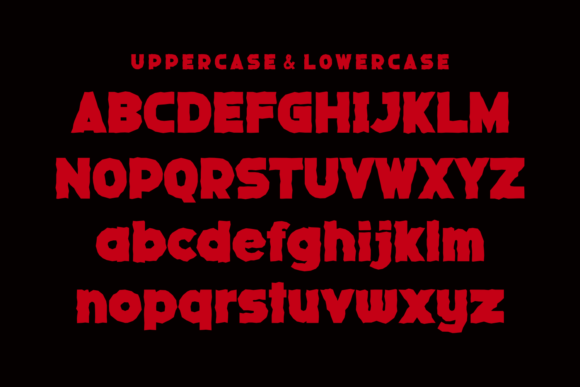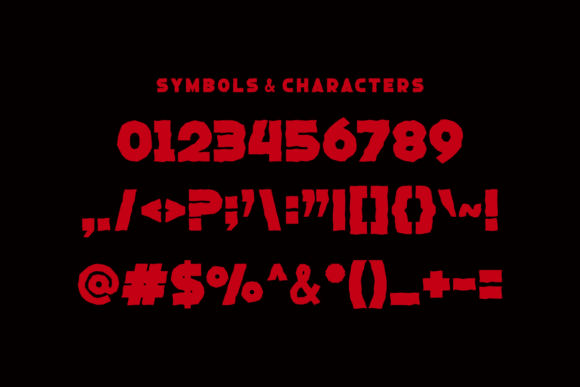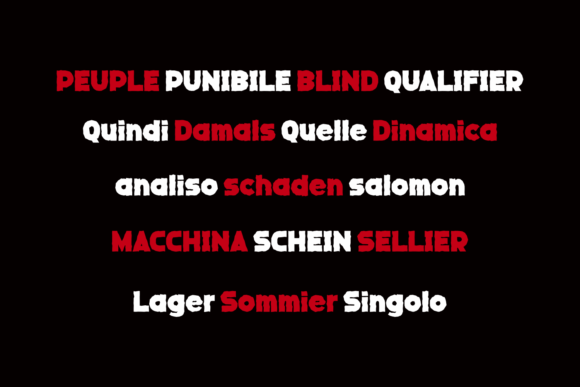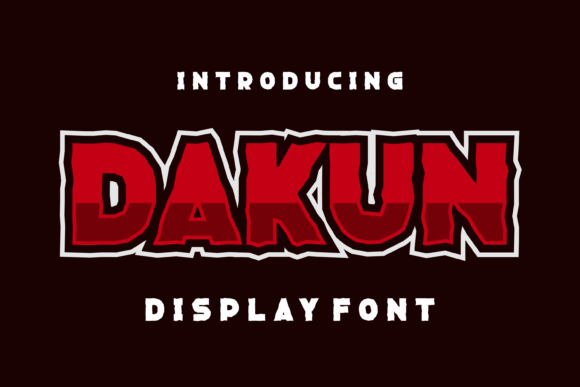
The Designer’s Delight: Unlocking the Potential of Dakun Font
Ah, the thrill of the design process! You’ve got a project to work on, a deadline to meet, and a vision to bring to life. But then, you hit a roadblock – finding the perfect font. I recall a particularly frustrating experience when I was working on a branding project for a trendy coffee shop. The client wanted a font that was modern, elegant, and highly legible. That’s when I stumbled upon Dakun Font, and it instantly became my go-to choice.
An Honest Review of Dakun Font
So, what makes Dakun Font so special? Let’s dive into the good stuff! 😊
- ✨ Perfect for print and screen: Dakun Font shines in both digital and print formats, making it an excellent choice for a wide range of projects.
- ✅ Extensive character set: It includes uppercase and lowercase letters, numbers, and punctuation, ensuring you have all the characters you need.
- ✅ Highly versatile: Use it for branding, name cards, posters, logos, magazines, covers, banners, t-shirts, and headers – the possibilities are endless!
Of course, no font is perfect, and Dakun Font has a few minor quirks:
- 🤔 Limited stylistic alternates: While Dakun Font has an excellent range of characters, it may not offer as many stylistic alternates as some other fonts.
- ⚠️ May require adjustment for large-scale use: When using Dakun Font for large-scale artwork, you might need to make some adjustments to ensure it looks its best.
Dakun Font comes with a range of OpenType features and glyphs that can elevate your designs. Take some time to explore these features in your design software of choice. You can access glyphs and stylistic alternates to add an extra layer of creativity to your work.
The Story Behind Dakun Font
Dakun Font was created with the goal of providing a versatile, high-quality font for designers and crafters. The designer aimed to craft a font that would excel in both print and digital formats, with a focus on elegance and legibility. While the exact story behind Dakun Font might be shrouded in mystery, its exceptional design and functionality speak for themselves.